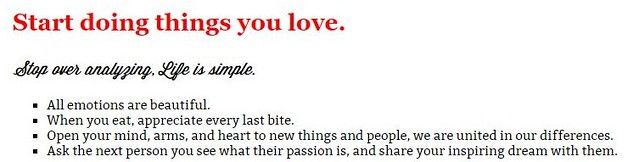
A CSS Guide to Fonts
Today I will look at Lesson 11, the next lesson in the updated Skillcrush 101 course. This lesson will start diving further into CSS and looking at the different CSS properties. Lesson 11 is all about fonts and how they work in CSS, so they appear on a website.
You will learn two ways to add fonts to a website. One way might seem easier than the other, but developers and designers need to be familiar with both to build interactive, customized websites. Today's topic is a great reason to review typography. Although it isn't necessary, the typography post does have great tips on text alignment, font size, and typefaces which will be helpful when picking fonts for a website.
The last post introduced CSS.
CSS is what gives every website its personality and look. It is an important part of bringing a website to life and unique. CSS is written differently than HTML, but the computer handles it in the same way.
Therefore developers and designers need to be clear about what they write. Coding is giving directions to the computer, and the computer needs clear directions to print what you want on the browser. During this post, I showed you how CSS worked and explained some of the CSS properties developers used to add style to the text.
How do fonts work in CSS?
Web fonts are very popular with developers and designers. I love playing with web fonts, and I always find fonts I want to try as I build websites. I often use Pinterest to search for font pairings to look for even more fonts to try.
Picking fonts can seem intimidating at first. There is an endless selection of fonts you can choose from. Although this dilemma might make it hard to choose, this wasn't always the case.
In the past, developers and designers had the opposite problem.
Before the days of web fonts, there wasn't a big selection of fonts people could play with. If a developer wanted to use a fancy font on a website, the only way to use this font was to put lots of images of the text on the website. This meant you had to make images of every single bit of your text in this fancy font.
It resulted in lots of work and lots of challenges updating the site. It also means a very slow website to load every single image on a website. Although this method was the only way to get fancy fonts on a website, it didn't match the most important principles of the web.
During this lesson, Adda emphasizes these principles and how everything developers do on the web needs to be "dynamic, interactive, easy to update, and flexible." Uploading lots of text images doesn't fit any of these principles. Today developers and designers don't have to do this anymore thanks to web fonts.
Web fonts allow developers and designers to use fancy fonts while keeping the important principles of the web. Now there are tons of web fonts available. Don't believe me? Go check out Google Fonts or Adobe Fonts (formerly known as Typekit) to see for yourself.
How to add web fonts to a website
There are two ways to add web fonts to a website. I will show you both ways to add web fonts to your website. Although developers have a preference for which method they like to use, newbies need to know both ways.
It may look like Google Fonts and Adobe Fonts have a wide selection of fonts to choose from, but it isn't perfect. If you don't find the font you are looking for on those sites, you might have to look at downloading font files. For those who plan on freelancing, this is important to know both ways.
A potential client might have a specific font in mind or have a font file a developer needs to use for the project. Therefore it is a good idea to know both ways to add fonts so you can best address the potential client's needs.
Embed the fonts using the CSS property @font-face.
To use some fonts on a website, you will need to use the @font-face property. This CSS property allows developers and designers to use any font on their website. You can use @font-face with any of the fonts on your computer or the ones you have permission to use.
These might be fonts you download from a website such as fontsquirrel.com or Creative Market. When you are picking fonts, files will include a license on the website or in the files that let you know their policies on how to use the fonts. Once developers have permission to use a font, they download the font and host it on their server so they can use the font on a website.
How to use @font-face property
To use the @font-face property with a font, here are the steps Skillcrush suggests their students use. I downloaded the Wisdom Script font to use for this demonstration, but you can use these steps with any font you like.